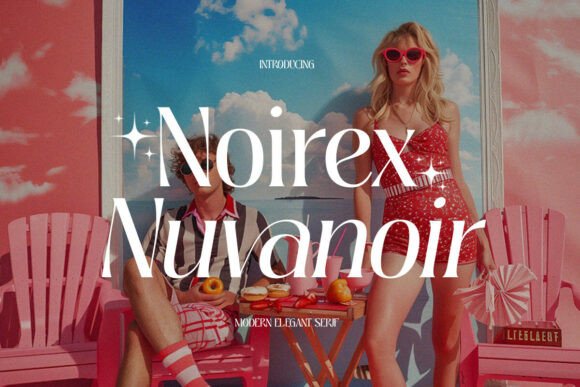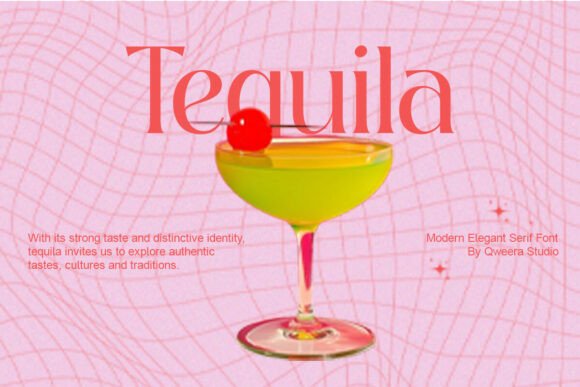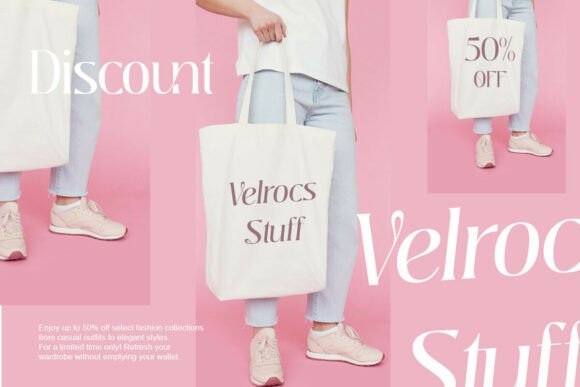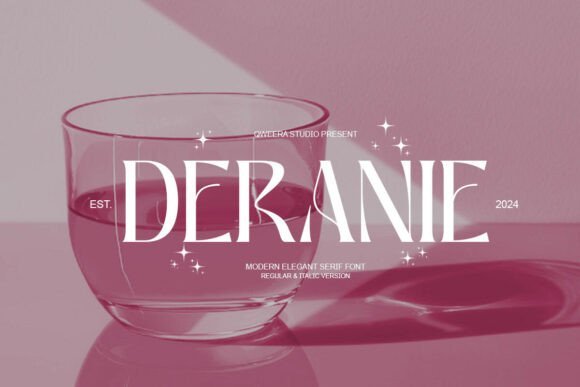
Introduction to Deranie Font
Deranie is a modern, elegant serif font defined by sleek contrast, sharp detailing, and refined curves.
Designed in both regular and italic styles, it brings a contemporary edge to classic serif structureβ€”ideal for upscale branding, editorial design, packaging, and high-impact headlines With tall, graceful letterforms and subtle flair, Deranie is well-suited for fashion labels, beauty products, invitations, and visual identities that require sophistication with a modern voice.